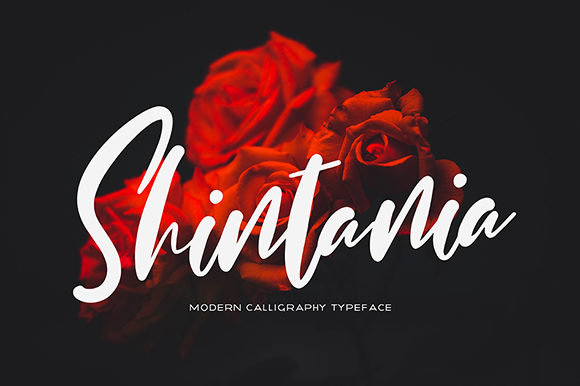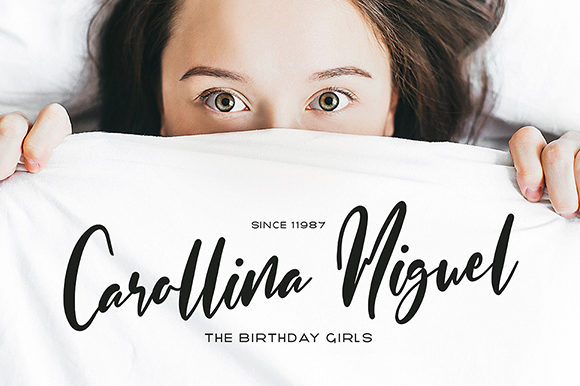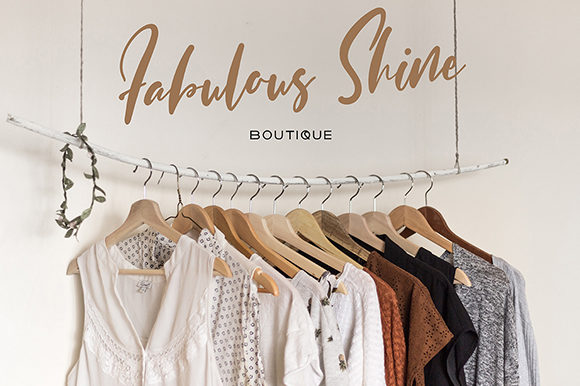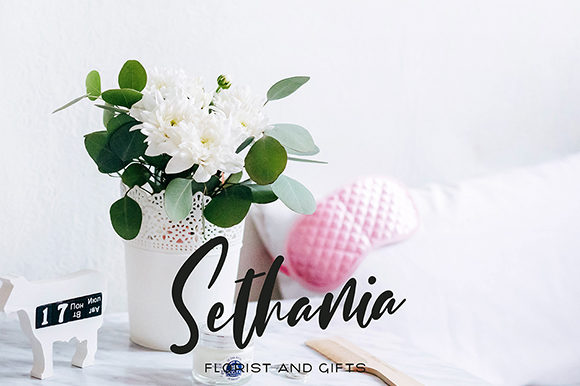
HomeScript FontsShintania Font Script Fonts Shintania Font FacebookXPinterestWhatsApp Shintania Font Poster 2 Shintania Font Poster 3 Shintania Font Poster 4 About Shintania Font Shintania is a stunningly romantic script font with a beautiful feel! Get inspired by its unique feel. DOWNLOAD ON CREATIVE FABRICAThis font is sold and delivered by Creative Fabrica. Font Canyon may earn a commission if you buy through this link. People also explored Azalea Font Kiranya Font Blue Font Hattesik Font Chill Font Daligona Font Beauty Flowers Font Camillas Bay Font Jayawijaya Font 304 0 TagsShintania Font Previous articleMutimel FontNext articleFister Theylard Font LEAVE A REPLY Cancel reply Comment: Please enter your comment! Name:* Please enter your name here Email:* You have entered an incorrect email address! Please enter your email address here Website: Save my name, email, and website in this browser for the next time I comment. Personal Use Free Bukhari Script Personal Use Free Read more about this font Valentine Chips Personal Use Free Read more about this font Mueband Personal Use Free Read more about this font Darla Personal Use Free Read more about this font BLOG How to Cut Any Font on Cricut: Convert a Font to SVG (Free) Turn any font into a clean SVG so it cuts crisp on Cricut - a quick 3-step workflow using a free font-to-SVG tool. Top 10 Handwritten Fonts That Elevate Your Designs Fonts That Capture the Spirit of New York City Modern Sans-Serif Fonts That Brands Love in 2025